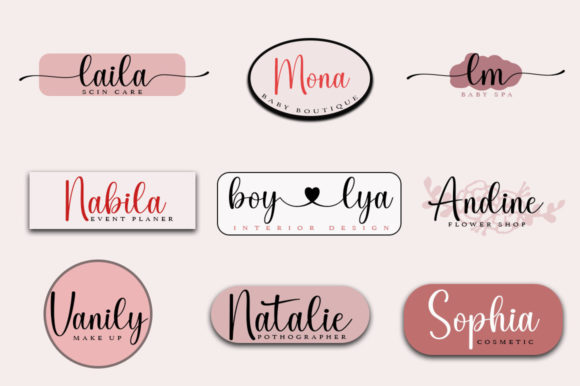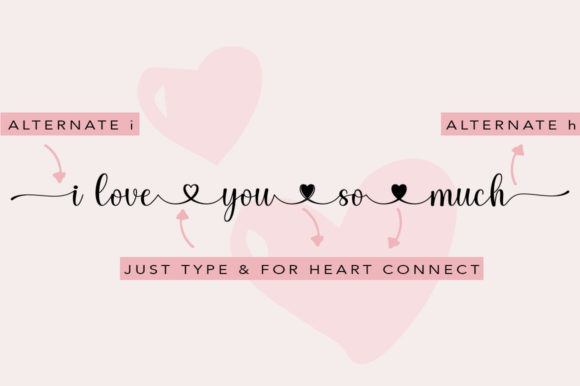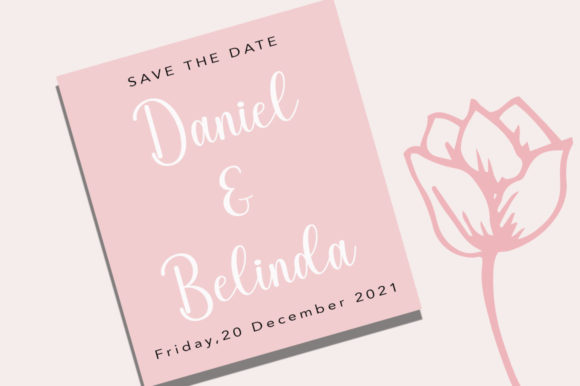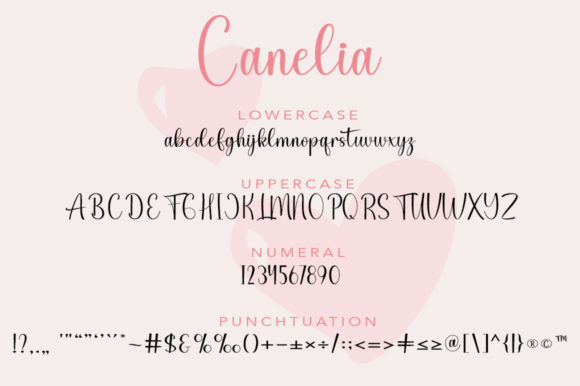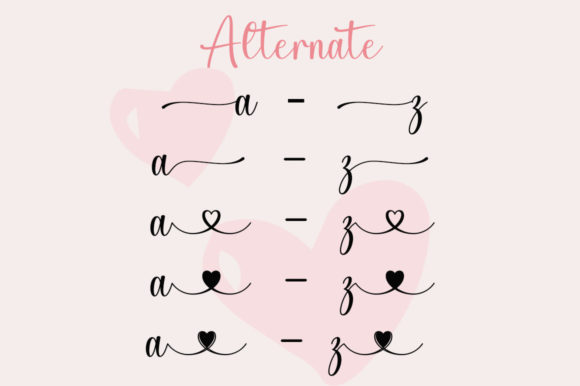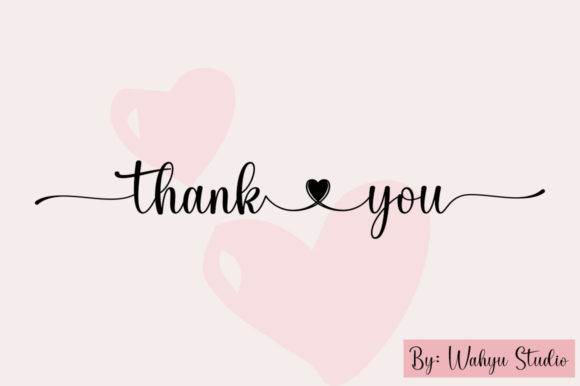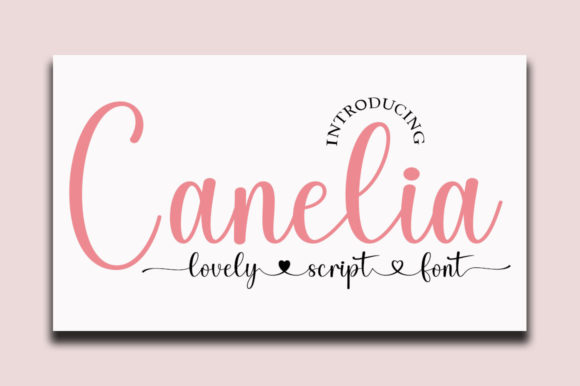
Canelia Font: Elevate Your Designs with Sophistication and Elegance
In the world of typography, a font can make or break a design. For designers and crafters seeking to add a touch of sophistication and elegance to their projects, Canelia Font is an exceptional choice. This chic, refined script font is designed to emanate luxury and poise, making it perfect for a wide range of applications. In this article, we’ll delve into the features and benefits of Canelia Font, exploring how it can elevate your designs and streamline your creative process.
The Essence of Canelia Font
Canelia Font is a masterfully crafted script font that exudes refinement and style. Its elegant lines and curves are meticulously designed to convey a sense of sophistication, making it an ideal choice for designers and crafters who want to add a touch of luxury to their work. Whether you’re creating branding materials, packaging, or digital content, Canelia Font is sure to make a lasting impression.
Stylish Alternates and Ligatures
One of the standout features of Canelia Font is its extensive range of stylish alternates and ligatures. These typographic elements allow you to add a unique touch to your designs, creating a distinctive look that sets you apart from the crowd. With Canelia Font, you can effortlessly switch between different alternates and ligatures to find the perfect combination that suits your project’s tone and style.
Canelia Font is PUA (Private Use Area) encoded, which means that accessing its extensive range of glyphs and swashes is incredibly easy. PUA encoding allows you to access these additional typographic elements with ease, making it simple to incorporate them into your designs. This feature saves you time and effort, enabling you to focus on the creative aspects of your project.
Canelia Font’s versatility makes it an excellent choice for a wide range of projects. Whether you’re working on:
- Branding and logo design: Canelia Font’s elegant lines and curves make it perfect for creating sophisticated logos and brand identities.
- Packaging design: Add a touch of luxury to your packaging with Canelia Font’s refined and stylish alternates.
- Digital content: Elevate your digital content, such as blog posts, social media graphics, and email newsletters, with Canelia Font’s elegant typography.
- Stationery and paper goods: Create beautiful stationery, greeting cards, and paper crafts with Canelia Font’s sophisticated and refined style.
Canelia Font offers numerous benefits for designers and crafters, including:
- Ease of use: PUA encoding makes it easy to access and use the font’s extensive range of glyphs and swashes.
- Time-saving: With Canelia Font, you can quickly create professional-looking designs without spending hours searching for the perfect typographic elements.
- Versatility: Canelia Font’s stylish alternates and ligatures make it suitable for a wide range of projects and design applications.
- High-quality design: Canelia Font’s refined and elegant design ensures that your projects look polished and sophisticated.
In conclusion, Canelia Font is an exceptional choice for designers and crafters seeking to add a touch of sophistication and elegance to their projects. With its stylish alternates, ligatures, and PUA encoding, this chic script font offers a world of creative possibilities. Whether you’re working on branding, packaging, digital content, or stationery, Canelia Font is sure to elevate your designs and streamline your creative process. So why wait? Discover the beauty and versatility of Canelia Font today and take your designs to the next level!